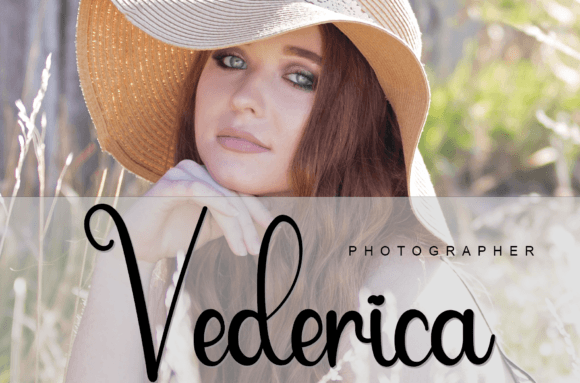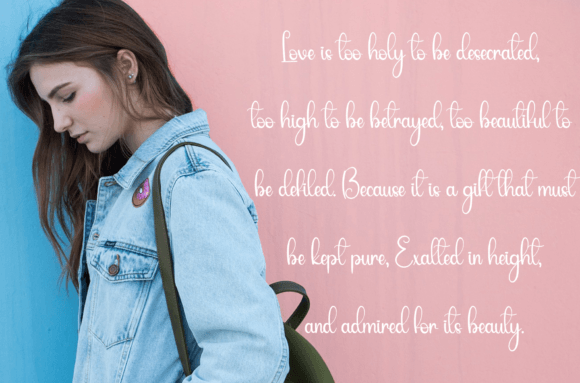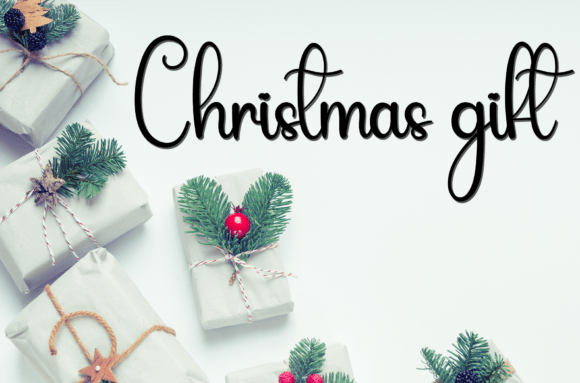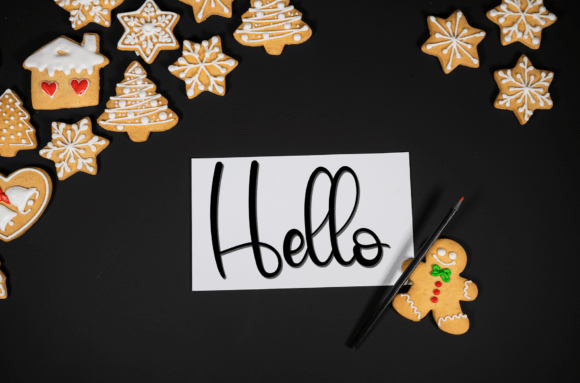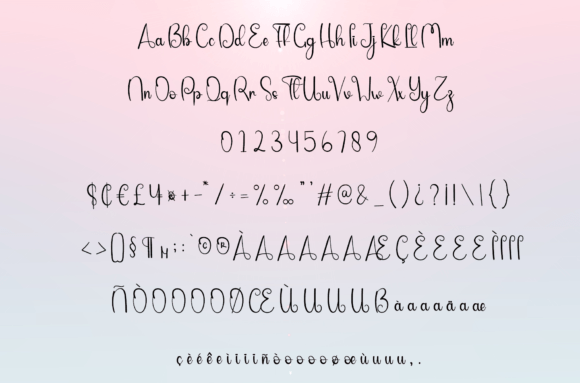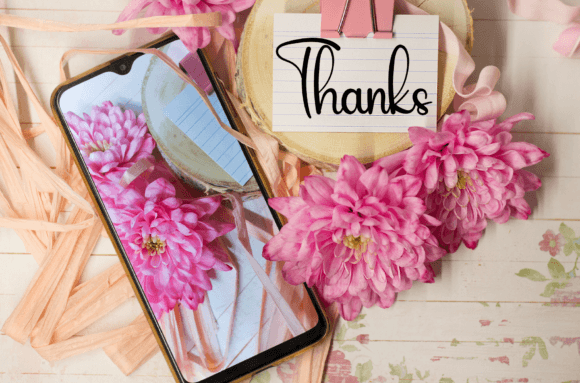
The Magical World of Hey Santa Font
It’s the most wonderful time of the year – and I’m not just talking about the holiday season! As a designer, I’ve been working on a festive project, and I stumbled upon the perfect font that captured the essence of joy and playfulness: Hey Santa Font. In this article, I’ll share my experience with this delightful font, its features, and how to make the most of it in your designs.
A Design Moment of Frustration and Joy
I recall working on a client’s Christmas card project, struggling to find the right font that would convey the warmth and whimsy they wanted. I tried several fonts, but none seemed to fit the bill. That’s when I discovered Hey Santa Font. Its charming, handwritten style immediately caught my attention, and I knew I had found the perfect fit. The font’s unique personality added a touch of magic to the project, and my client was thrilled with the result.
An Honest Review of Hey Santa Font
- ✨ The font’s handwriting style is incredibly authentic and festive, making it perfect for holiday projects.
- ✅ It’s highly versatile and can be used for various design applications, from wall displays to social media posts.
- 🎉 The font comes with a range of OpenType features, glyphs, and stylistic alternates, giving you plenty of creative options.
- 👍 The font is easy to read, even at smaller sizes, making it suitable for a wide range of projects.
While Hey Santa Font is an excellent choice for many projects, there are a few minor limitations to consider:
- ⚠️ The font may not be the best choice for very formal or traditional designs, as its playful style might not fit the tone.
- 🤔 Some users might find the font’s handwriting style too casual for certain projects, such as corporate branding or formal invitations.
The Backstory of Hey Santa Font
According to the font’s creators, Hey Santa Font was inspired by the magic of the holiday season. The designers wanted to capture the whimsy and playfulness of handwritten letters to Santa Claus, and the result is a font that’s both fun and festive. Whether you’re designing holiday cards, decorations, or social media posts, Hey Santa Font is sure to bring a touch of joy to your projects.
Q: What type of projects is Hey Santa Font best suited for?
A: Hey Santa Font is perfect for a wide range of projects, including wall displays, wedding invitations, social media posts, logos, advertisements, product packaging, product design, labels, photography, watermarks, invitations, stationery, and more.
Q: Is Hey Santa Font available in different styles or weights?
A: Yes, Hey Santa Font comes in various styles and weights, allowing you to experiment with different looks and feels in your designs.